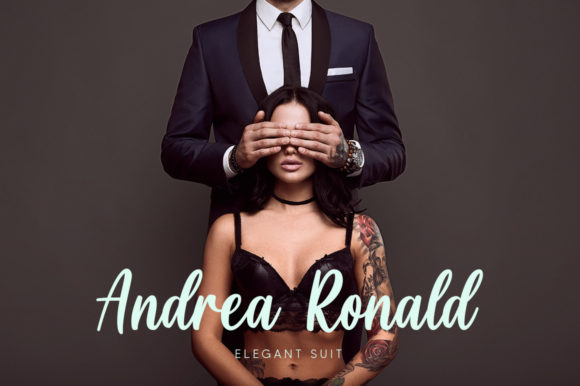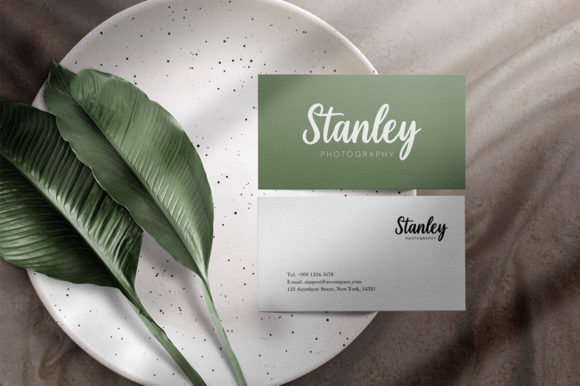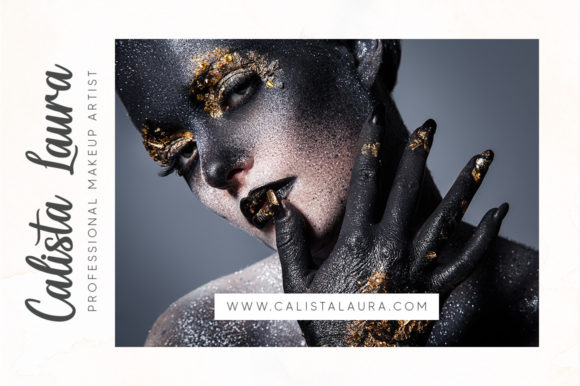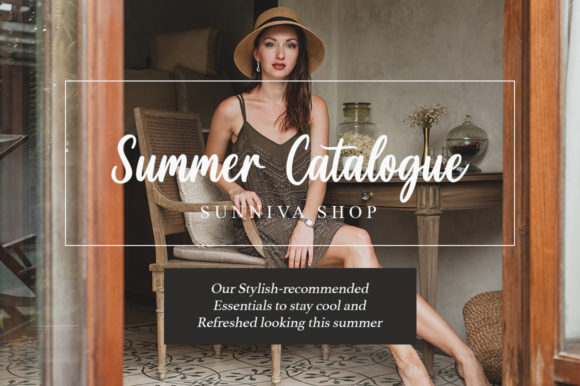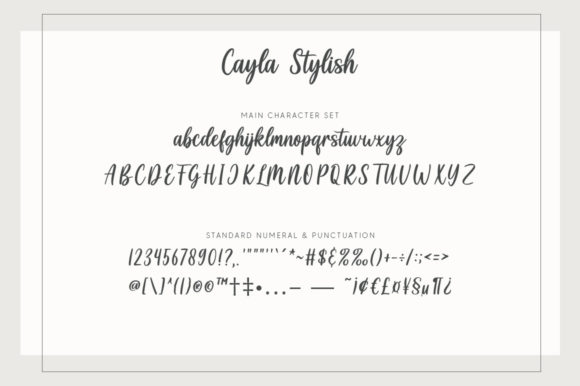
Cayla Stylish Font
Cayla Stylish is an elegant handwritten font that exudes sophistication. With its well-rounded letters, this font is a stunning choice for various designs, including wedding invitations, thank you cards, business cards, and any other project that requires a handwritten touch.
The elegance of Cayla Stylish adds a touch of refinement to your designs. Its carefully crafted letterforms bring a sense of beauty and grace, creating a visually pleasing aesthetic. Whether you’re designing for formal occasions or more personal projects, Cayla Stylish lends an exquisite handwritten charm.
The rounded letters of Cayla Stylish contribute to its versatility and appeal. This font effortlessly adapts to different design contexts, allowing it to shine in various applications. From wedding stationery to branding materials, Cayla Stylish adds a sophisticated and personal touch to your creations.
Cayla Stylish is particularly well-suited for projects that require a balance between elegance and a handwritten feel. Its stylish design strikes the perfect harmony, making it an ideal choice for conveying a sense of warmth and personal connection.
In summary, Cayla Stylish is an elegant handwritten font with well-rounded letters that add a stunning touch to your designs. Whether it’s wedding invitations, thank you cards, or business cards, this font brings a sophisticated and handwritten aesthetic. Embrace the beauty of Cayla Stylish and let it elevate your designs with its elegant and refined presence.